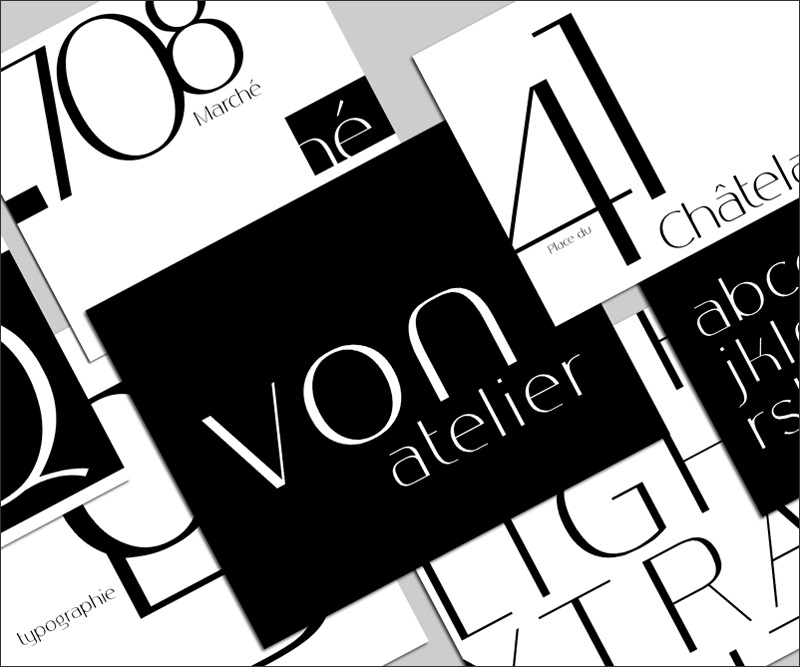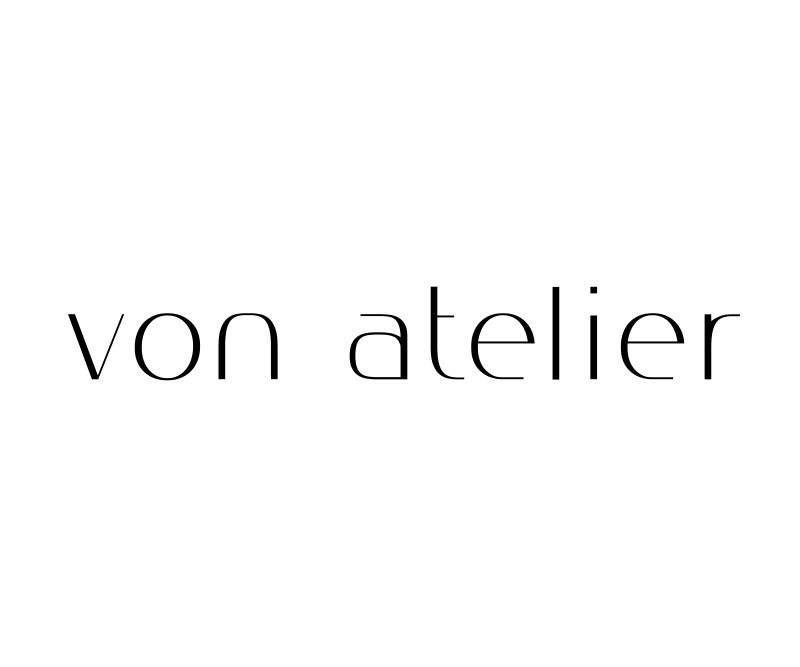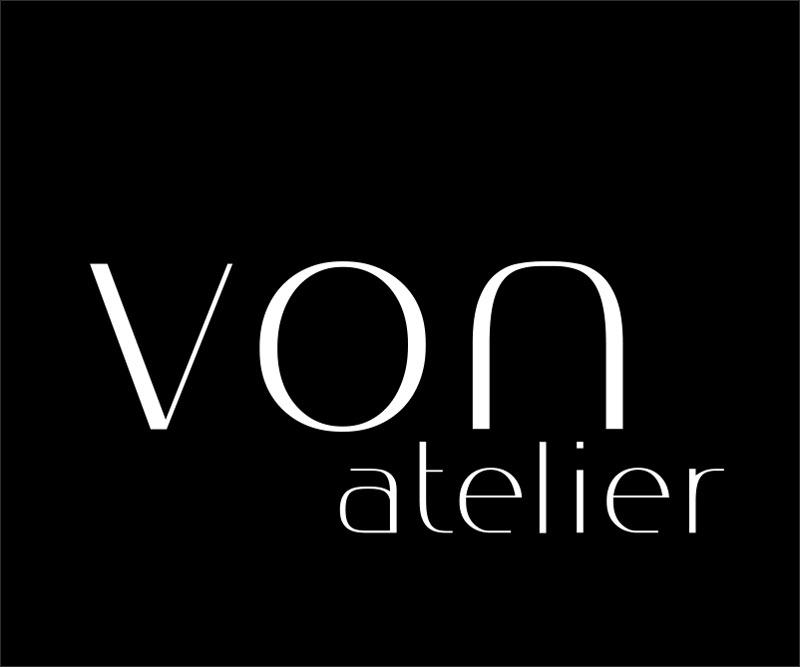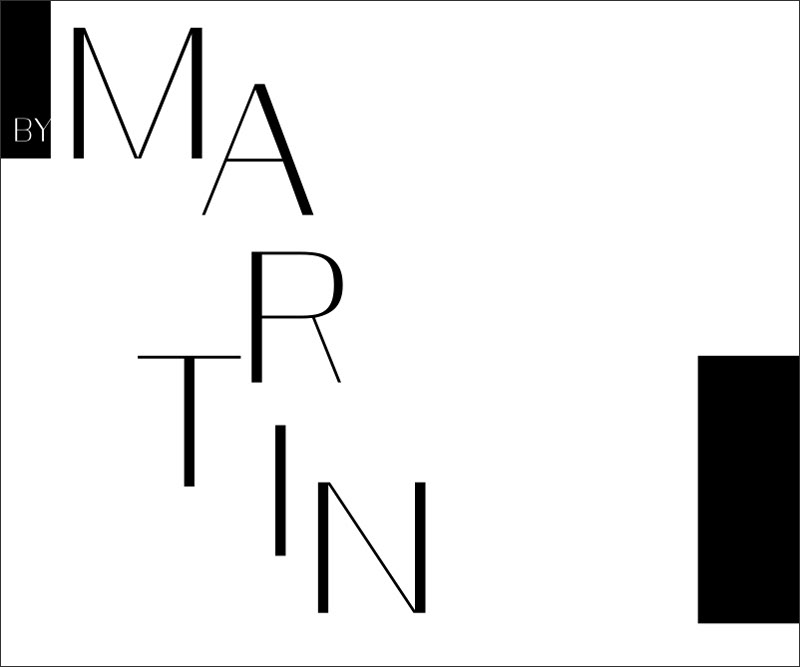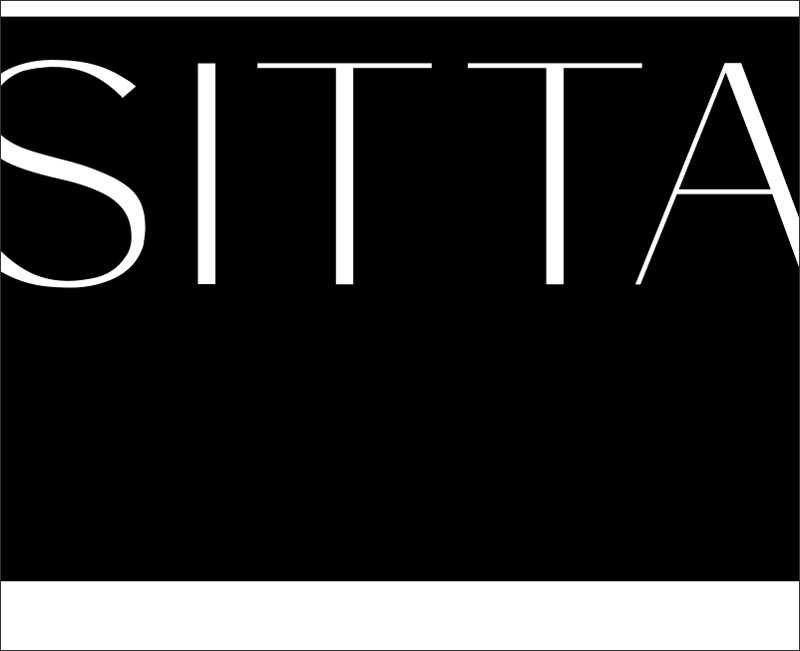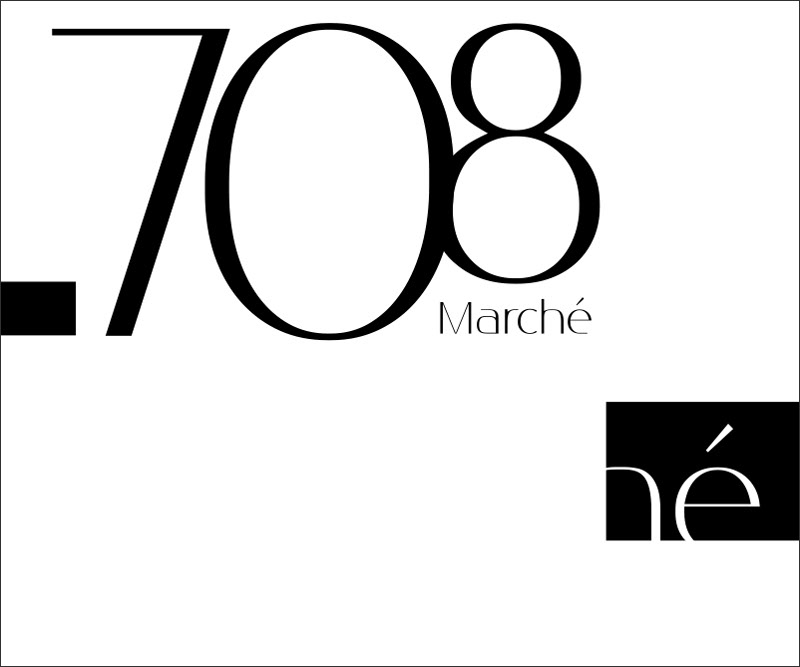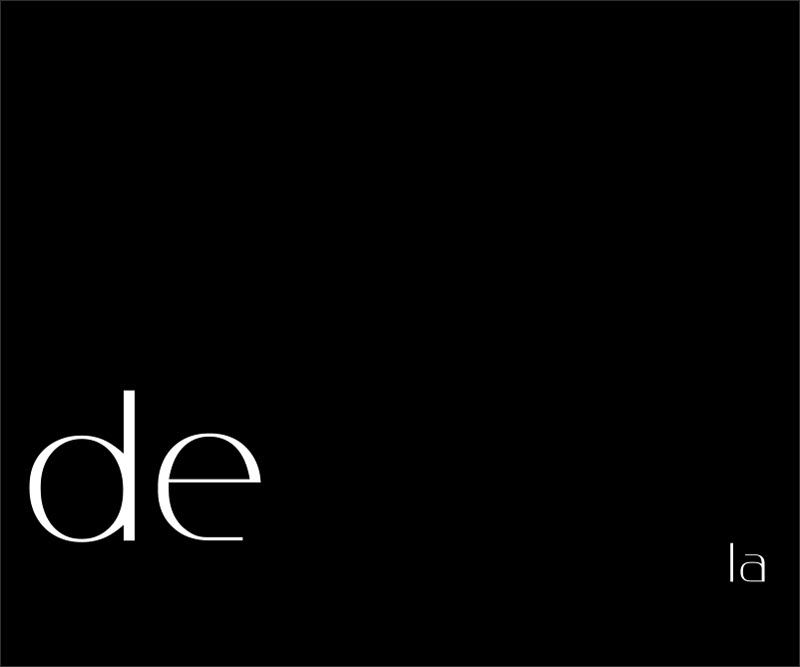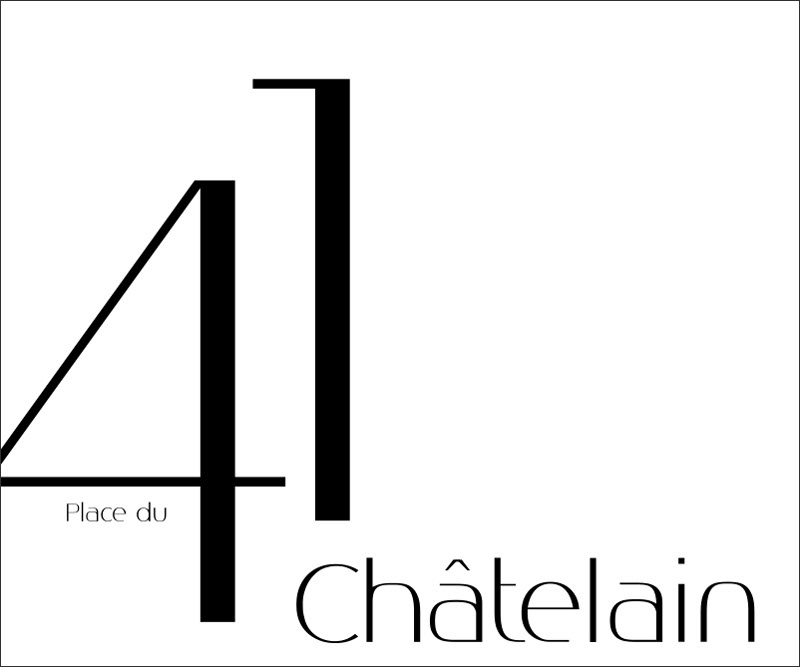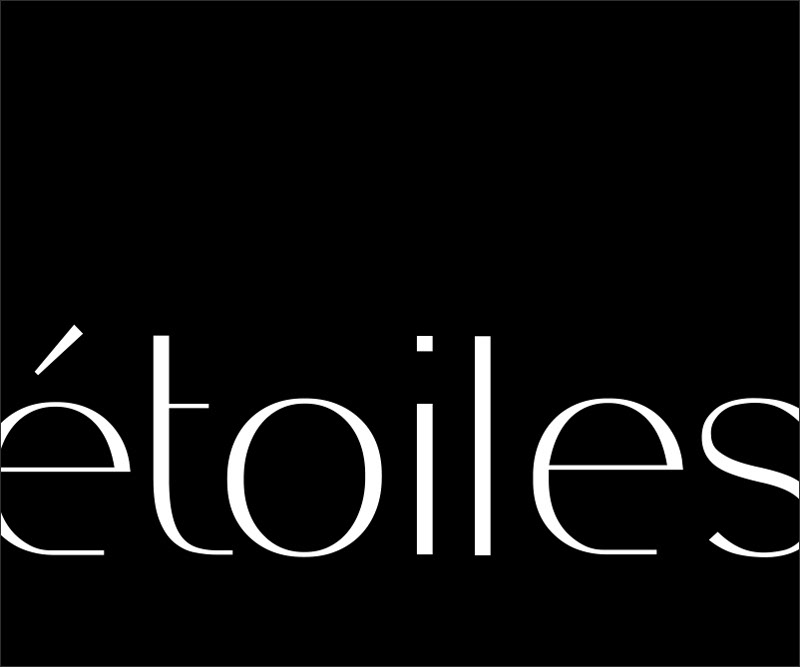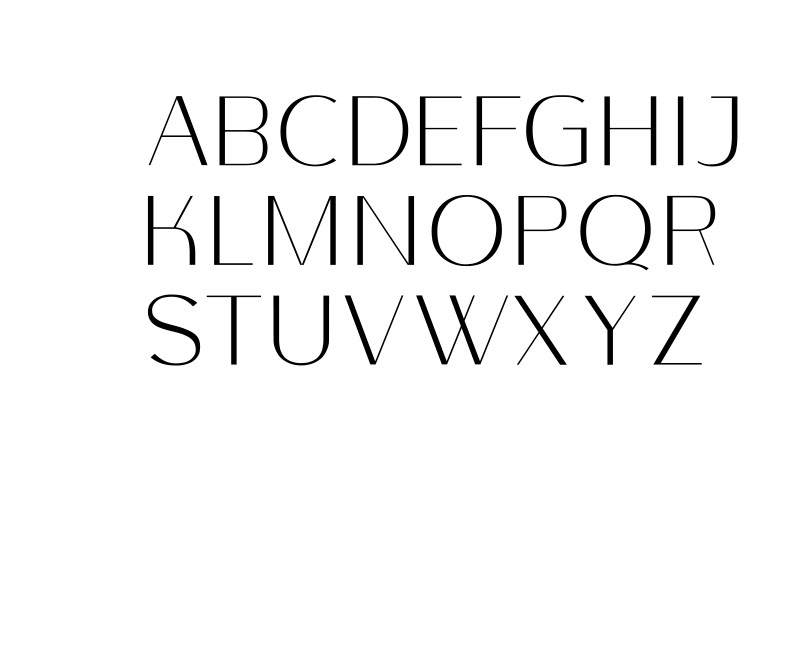
Von Atelier typeface
The Von Atelier was developed to be a clean, contemporary and fashionable sans serif typeface family. The font was designed with low contrast between stamps to provide a timeless and elegant look both in shape and personality. Its anatomy is suitable for body text or display. The uppercase has a traditional Roman shape while the lowercase brings a truly refined, genuine, elegant look.